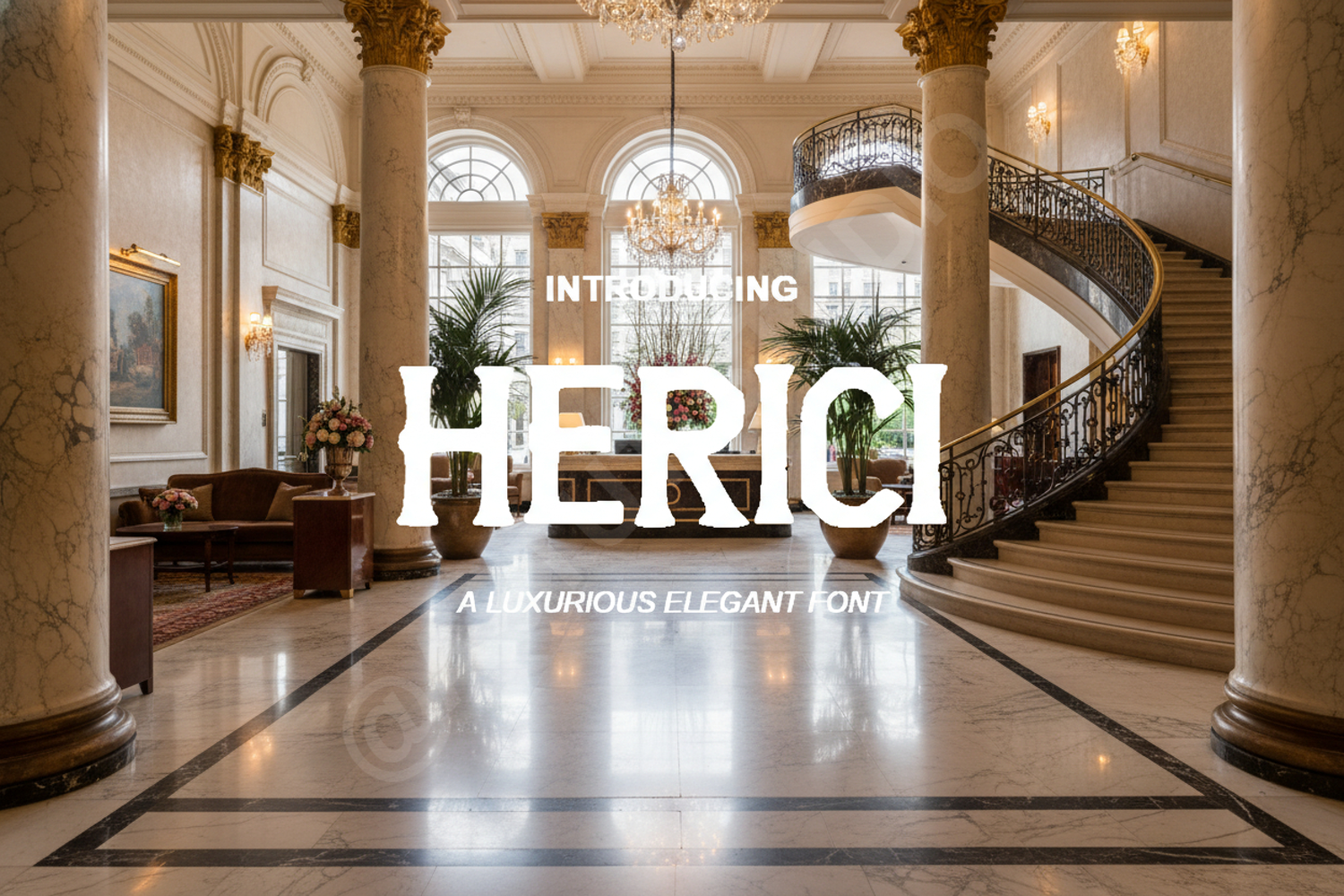
Herici - Elegant Modern Serif Display Font
Herici
Herici is a premium serif font meticulously crafted for those who seek sophistication and timeless appeal. With its refined proportions and distinctive character, Herici strikes a perfect balance between classic elegance and contemporary minimalism, making it an essential addition to any designer's toolkit.
- Branding and Identity: Create a memorable mark for luxury brands and boutiques.
- Wedding Stationery: Add a touch of class to invitations, menus, and place cards.
- Editorial Design: Perfect for magazine headers, book covers, and sophisticated layouts.
- Packaging: Elevate product presentation with high-end typography.
- Social Media: Design eye-catching quotes and elegant promotional graphics.